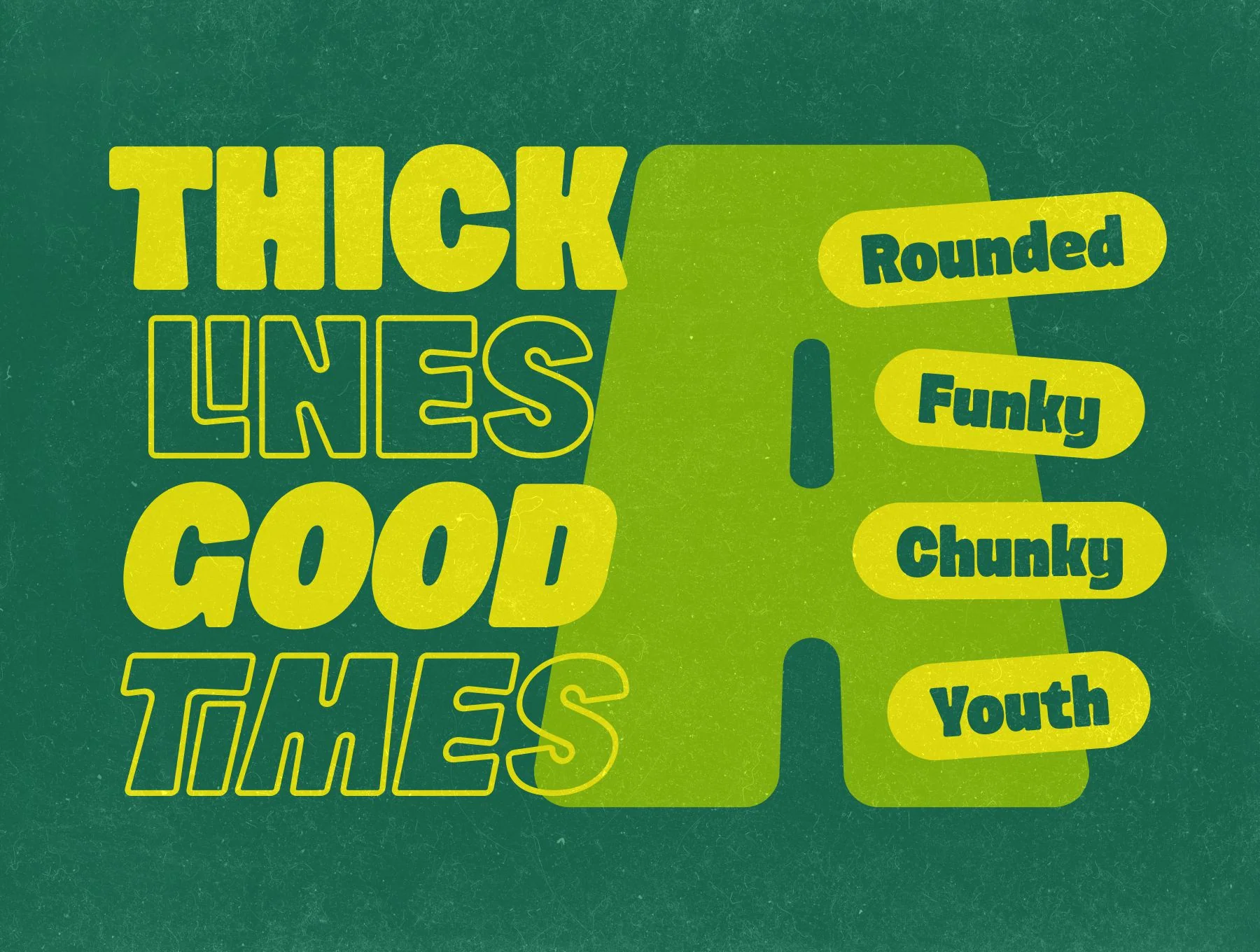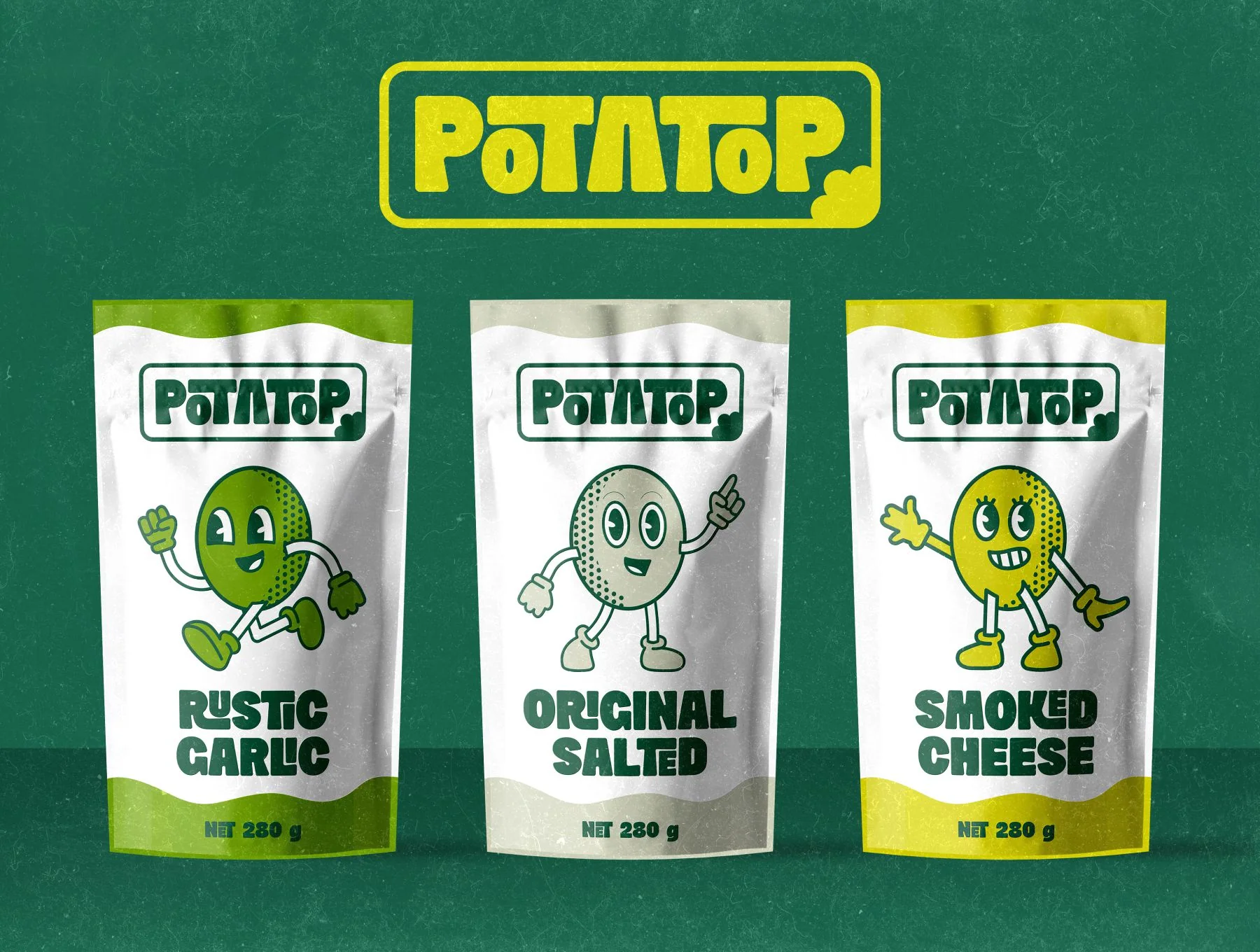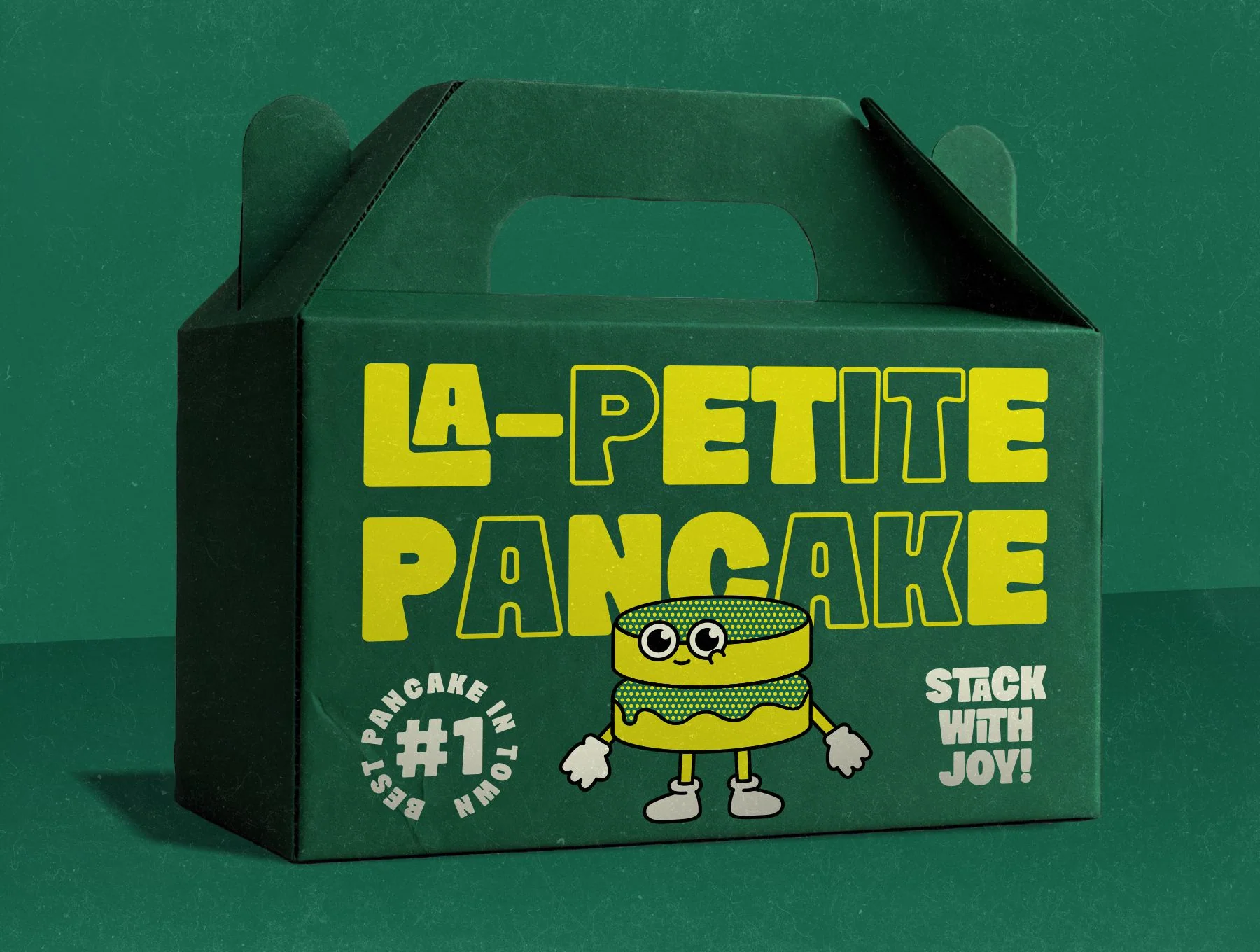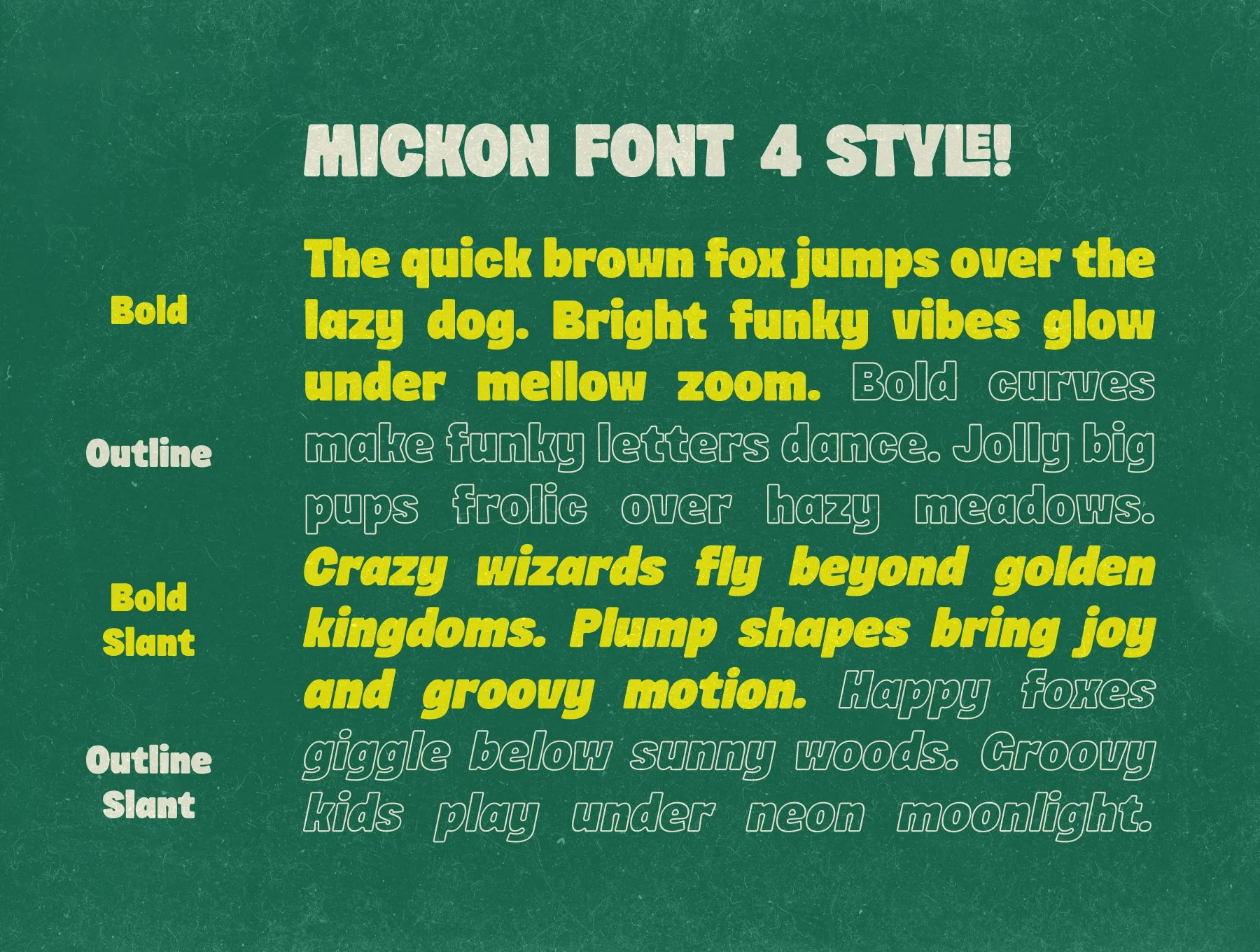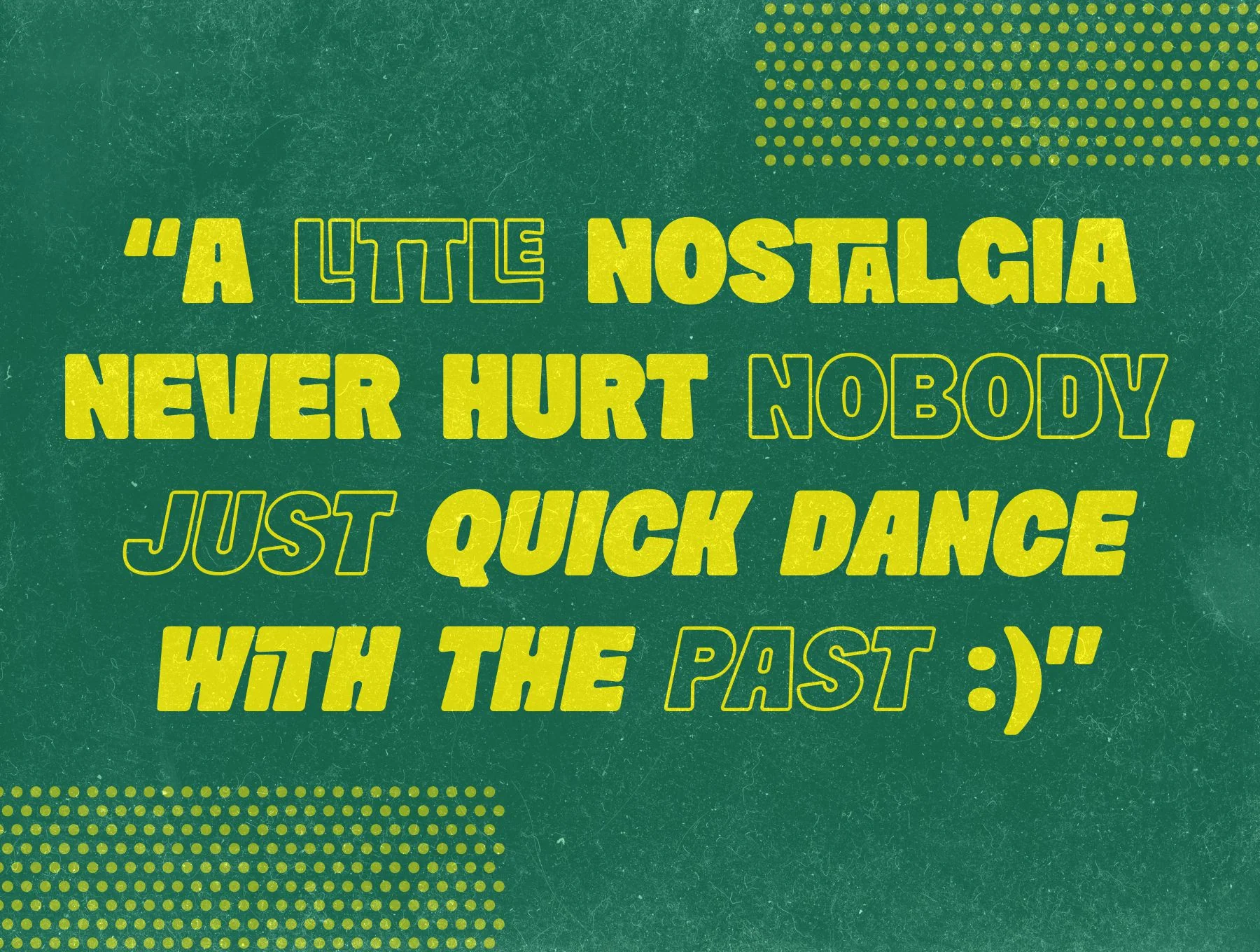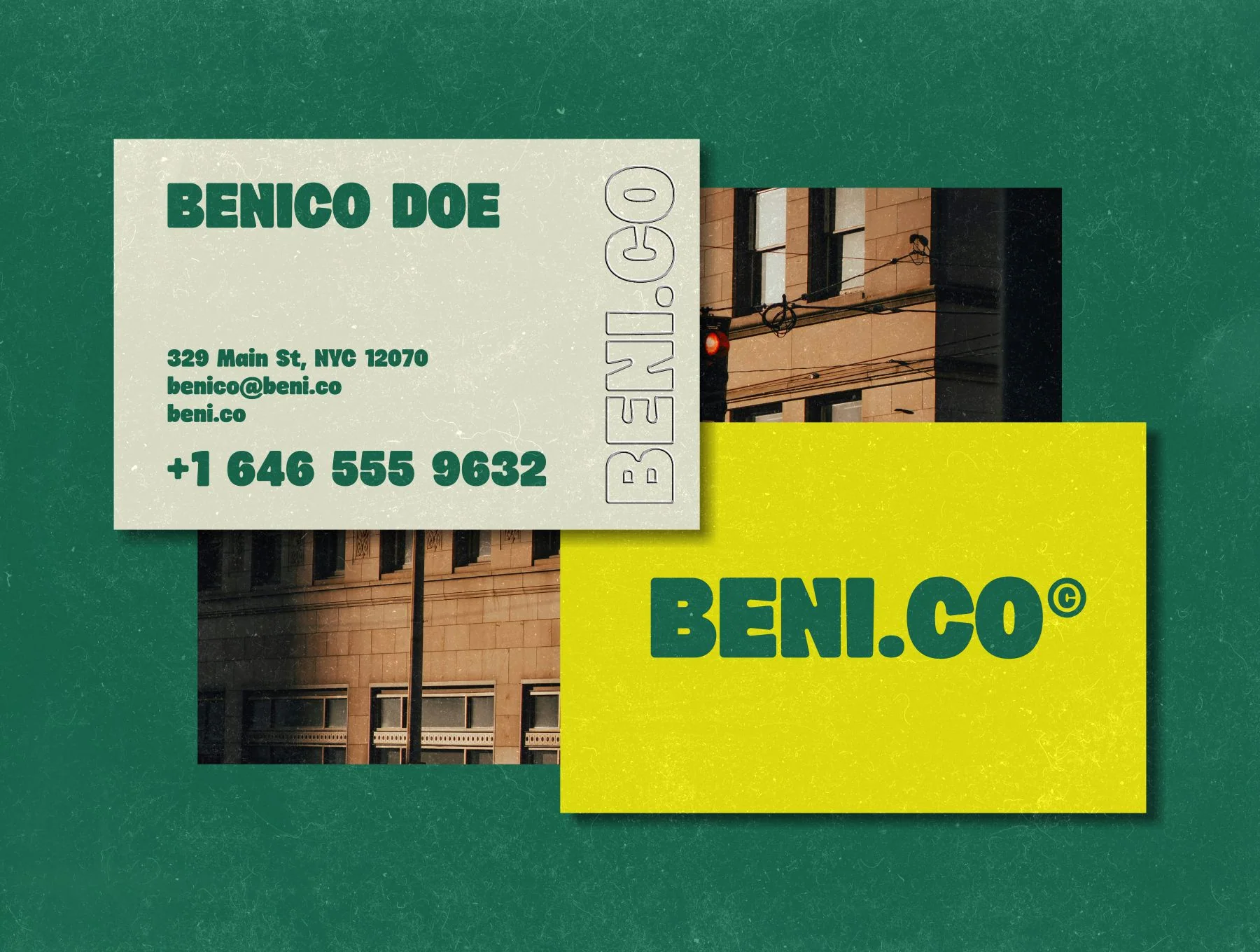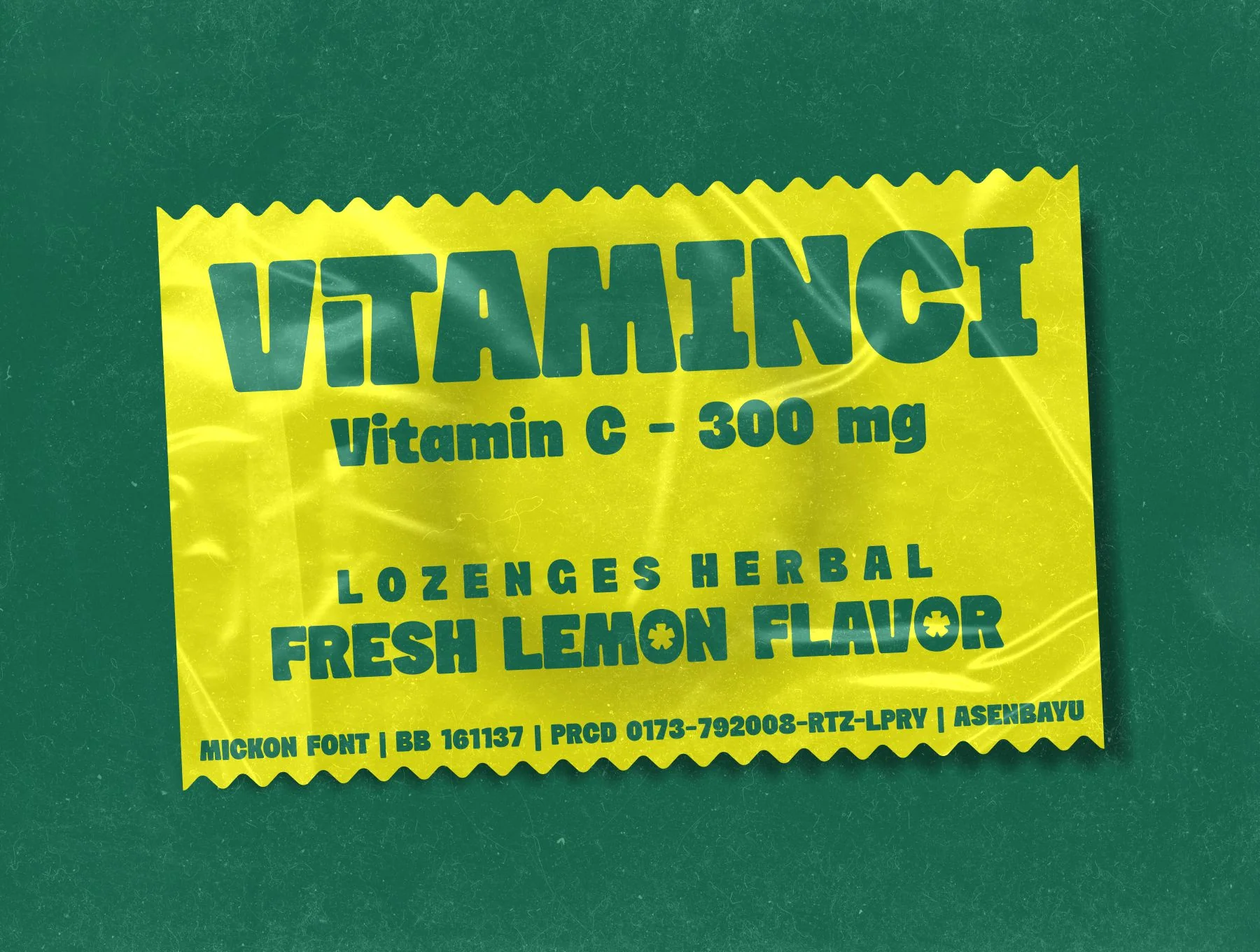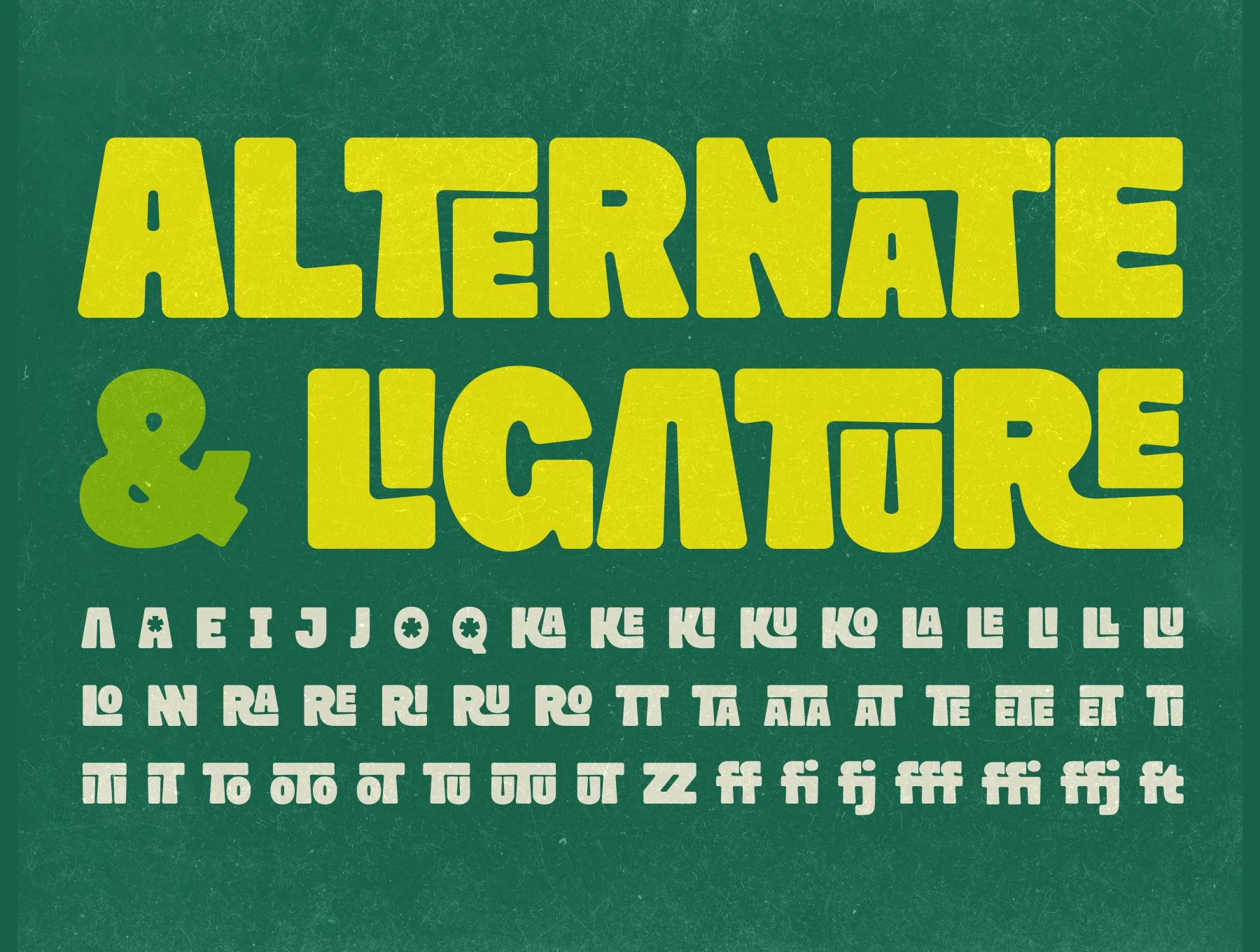
Mickon Font Family
Striking Vintage Display Typeface
Stylistic variants and ligatures
Mickon is a chunky rounded retro display typeface with a lively nostalgic feel. Its soft curves and full forms bring warmth, charm, and a welcoming look to posters, logos, branding, and standout headlines. Includes Bold, Bold Slant, Outline, and Outline Slant styles in OTF, TTF, and WOFF, with standard glyphs, alternates, ligatures, symbols, punctuation, and multilingual support.